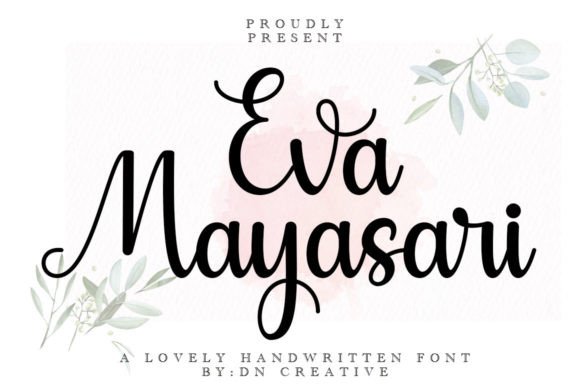
Introducing Eva Mayasari Font, a captivating script font that will add a touch of elegance and sophistication to all your projects. Let your creativity flourish as you explore the boundless possibilities of this enchanting typeface.
With its delicate and flowing strokes, Eva Mayasari captures the essence of timeless beauty. Its exquisite curves and graceful lines evoke a sense of romance and femininity, making it perfect for crafting heartfelt invitations, enchanting logos, and stunning social media graphics.
Step into the realm of elegance and let Eva Mayasari elevate your designs to new heights. Its versatility knows no bounds, seamlessly adapting to a multitude of creative endeavors. Whether you're designing wedding invitations, creating eye-catching posters, or adding a touch of charm to your branding, Eva Mayasari will effortlessly elevate your work.
Unleash your inner artist and let Eva Mayasari guide you on a journey of creative exploration. Its intuitive design and user-friendly interface make it effortless to incorporate into your digital masterpieces. Experience the joy of seamless creativity as you watch your visions come to life with graceful ease.